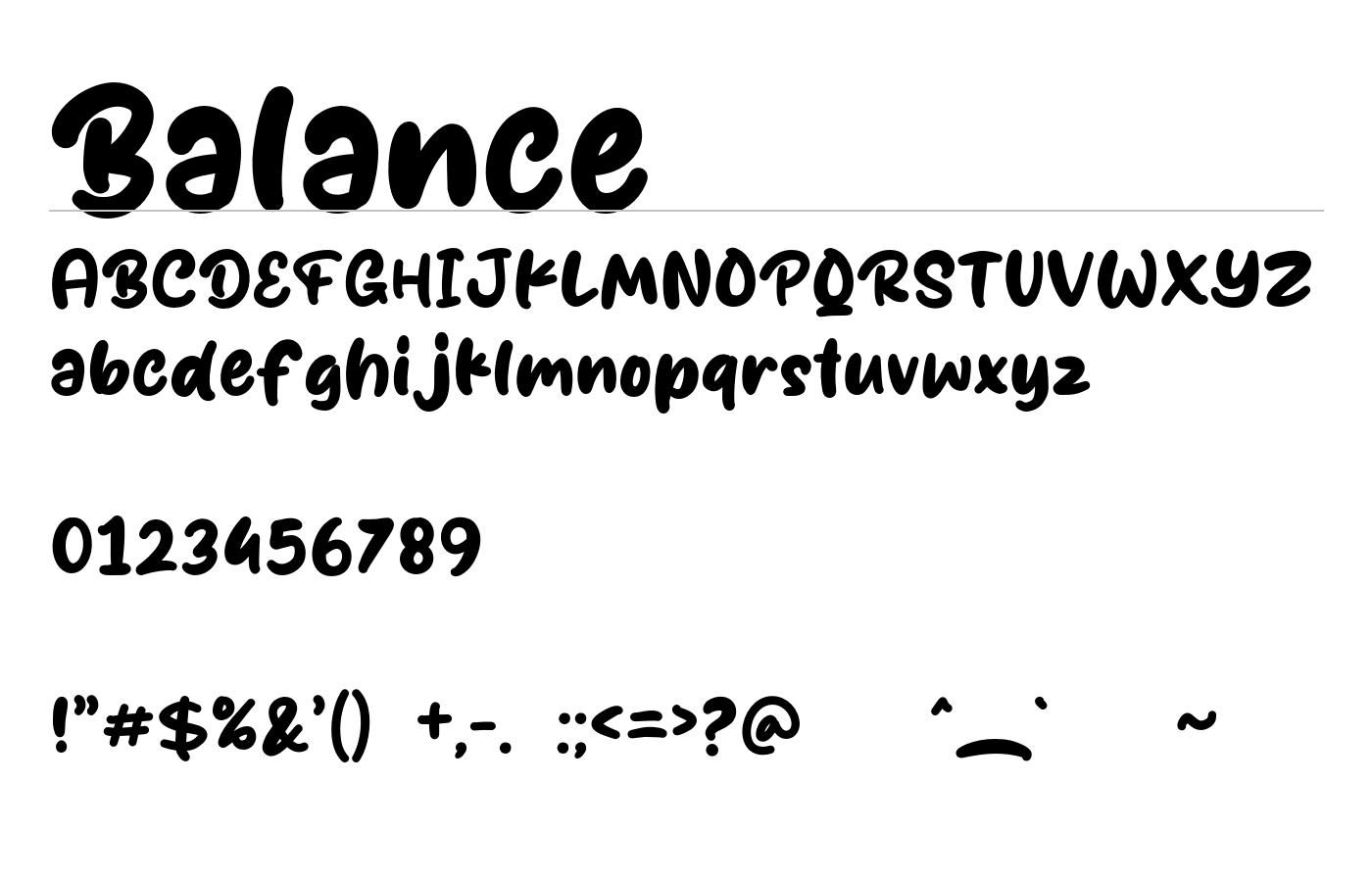
Balance Font is a playful and bold handwritten-style typeface characterized by rounded, soft edges and a friendly, casual feel. Its medium weight and balanced proportions make it ideal for designs that want to communicate warmth and approachability, such as children’s books, informal branding, and fun packaging. This font works best in headlines or display uses where its lively personality can shine and engage the audience.
Balance Font
About Balance Font